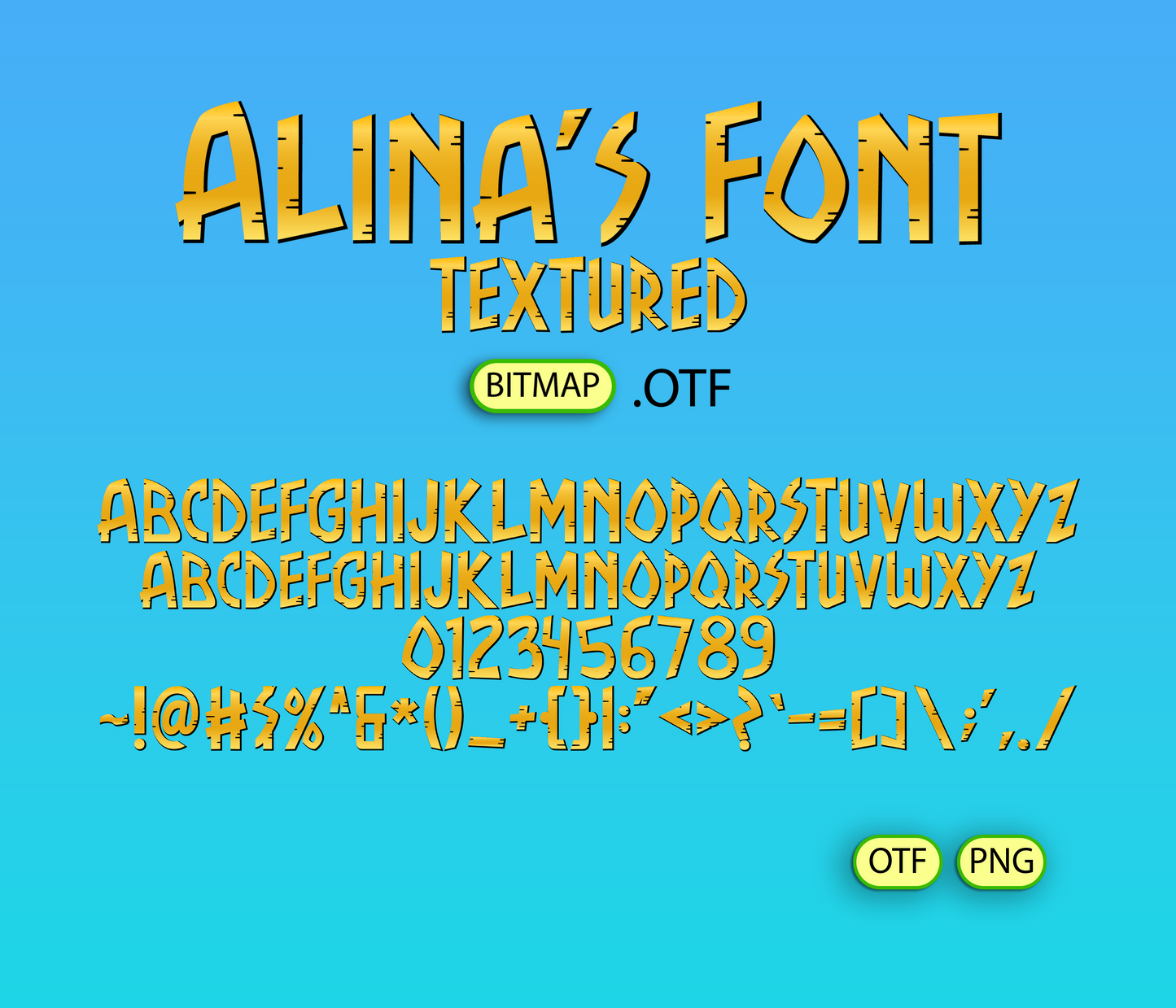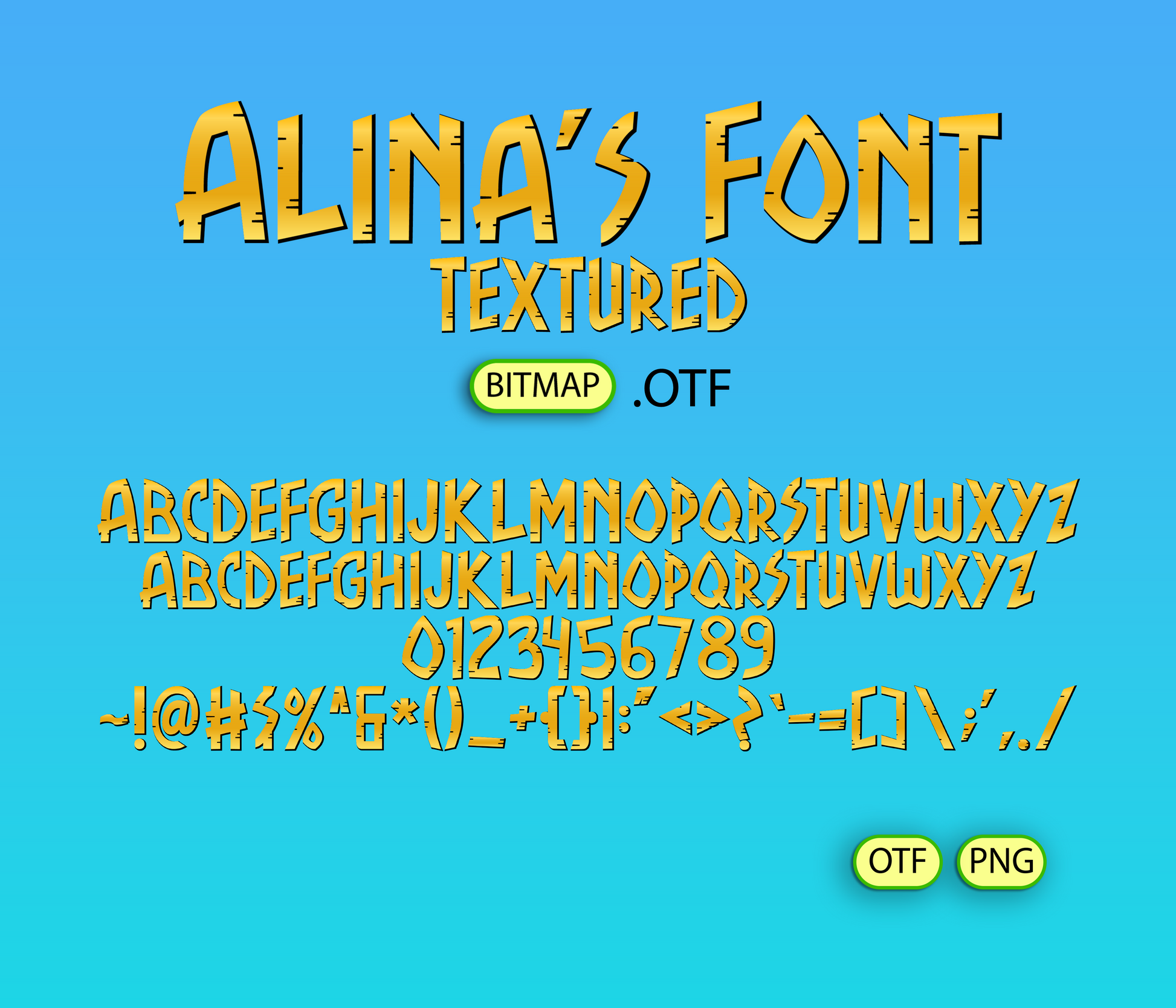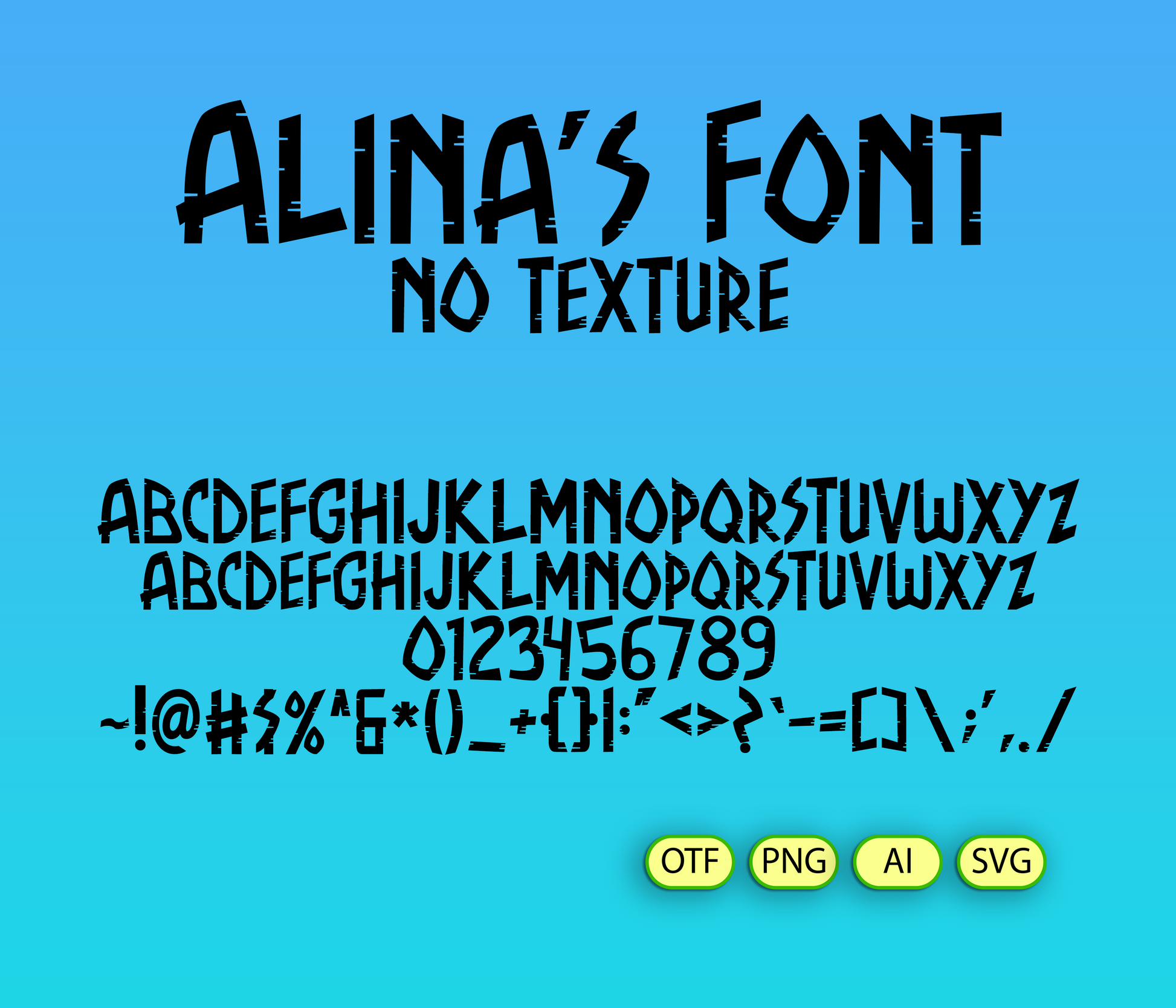
Native Princess Font Textured
Timeless Elegance Font: Inspired by a Native Princess
Immerse yourself in the rich world of a Native American princess with our specially designed Timeless Elegance font, a tribute to the beloved story that weaves a tale of love, understanding, and harmony with nature. This font embodies the grace and strength of the character, capturing the essence of her and the lush beauty of the wilderness. Each letter reflects the unique art style, blending natural elements with elegant fluidity. It's a font that speaks in timeless melodies.
What Font is Timeless Elegance?
Envision a typeface that resonates with the natural elegance and spiritual depth of the story. Our font mirrors the distinctive, flowing style associated with the character, encompassing the essence of the visual narrative. It includes an extensive character set, featuring alphabets, numbers, and special symbols, allowing for a wide range of creative applications echoing themes of nature, harmony, and cultural fusion.
What Can You Do With Timeless Elegance Font?
The Timeless Elegance font is versatile and ideal for a variety of creative applications:
- Nature-Themed Projects: Perfect for environmental campaigns and nature-inspired designs.
- Educational Materials: Use in history and cultural studies resources to engage students.
- Themed Event Invitations: Craft invitations for events or parties inspired by the story’s aesthetic.
- Custom Apparel: Design clothing and accessories that echo the character's connection with nature.
- Film and Theater Productions: Suitable for titles, credits, and promotional materials.
- Digital Content: Enhance websites and social media posts with a touch of natural elegance.
- Personalized Stationery: Create unique stationery reflecting the themes of the story.
- Home Decor: Design wall art and items inspired by scenic beauty.
- Brand Identity: Incorporate into branding for eco-friendly and cultural themes.
- Creative Art and Crafts: Ideal for scrapbooking, crafting, and artistic projects.
Feature Highlights and Bonuses:
- Textured and Non-Textured Variants: Choose between a natural, textured style or a smooth version for versatile applications.
- Extensive Character Set: Offers a full range of characters for comprehensive design options.
The Timeless Elegance font is more than just a typeface; it's an invitation to explore themes of nature, culture, and harmony.